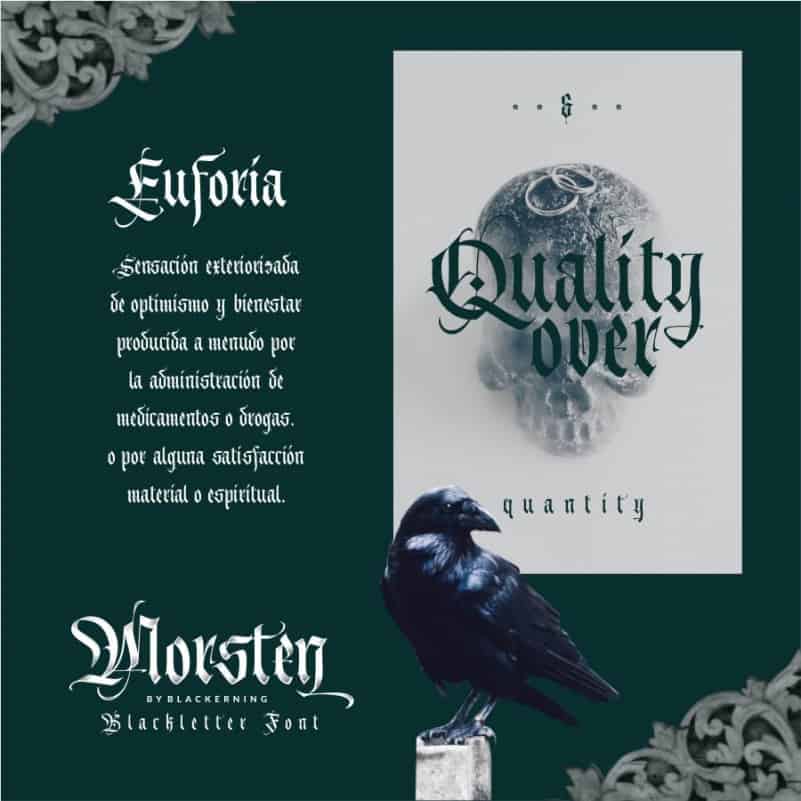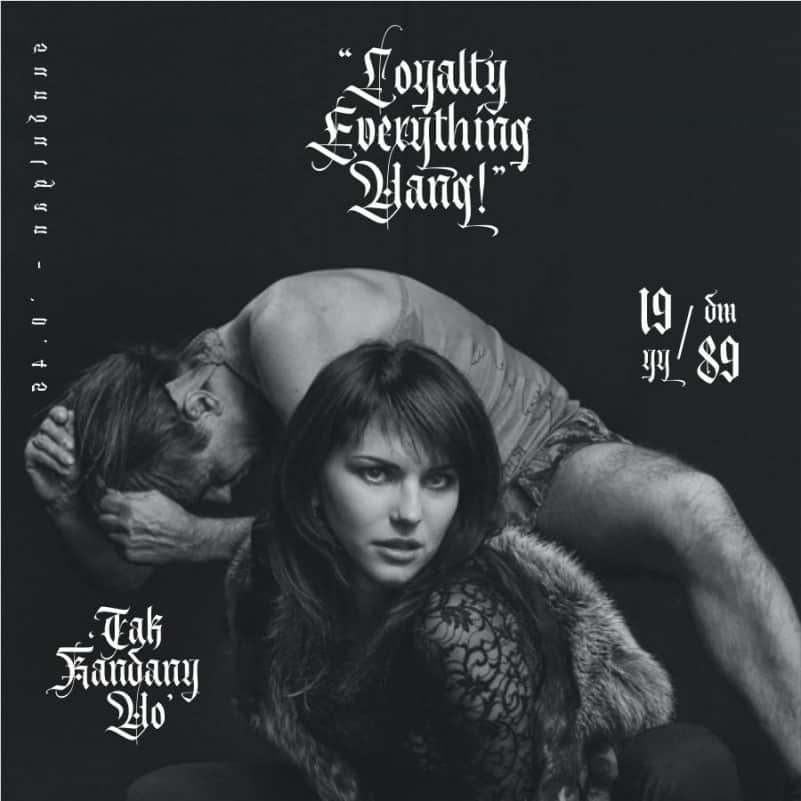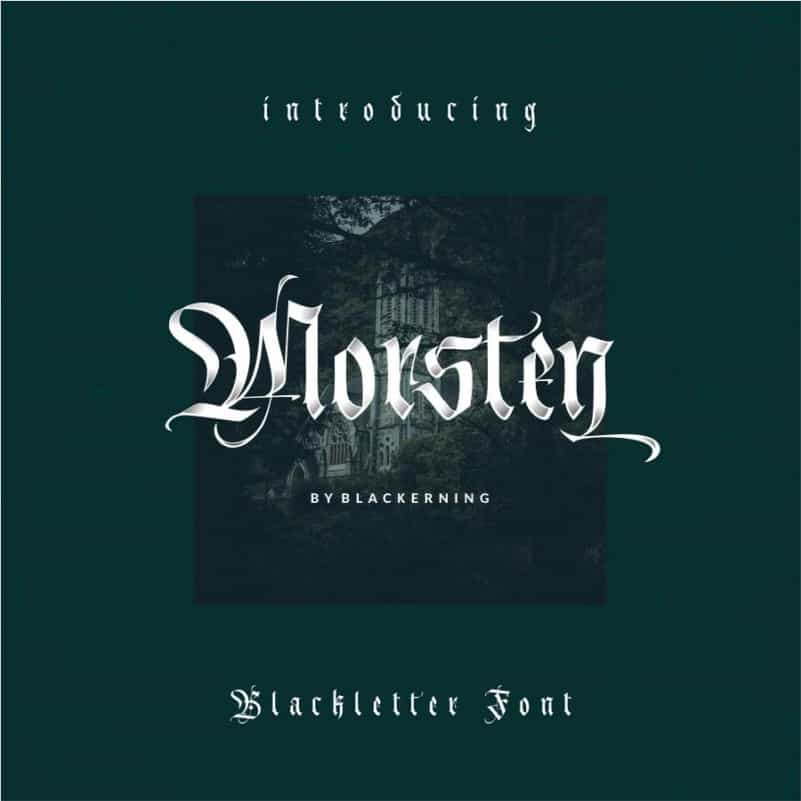
Morsten Blackletter Font is an incredibly authentic and daring blackletter font inspired by victorian florist ornament. Made from font designer named Taufiqurrohman Nadri. A mixture between vintage and florist ornamental edges. Morsten comes in uppercase, lowercase, numerals, punctuations, symbols, alternates and multilingual support.